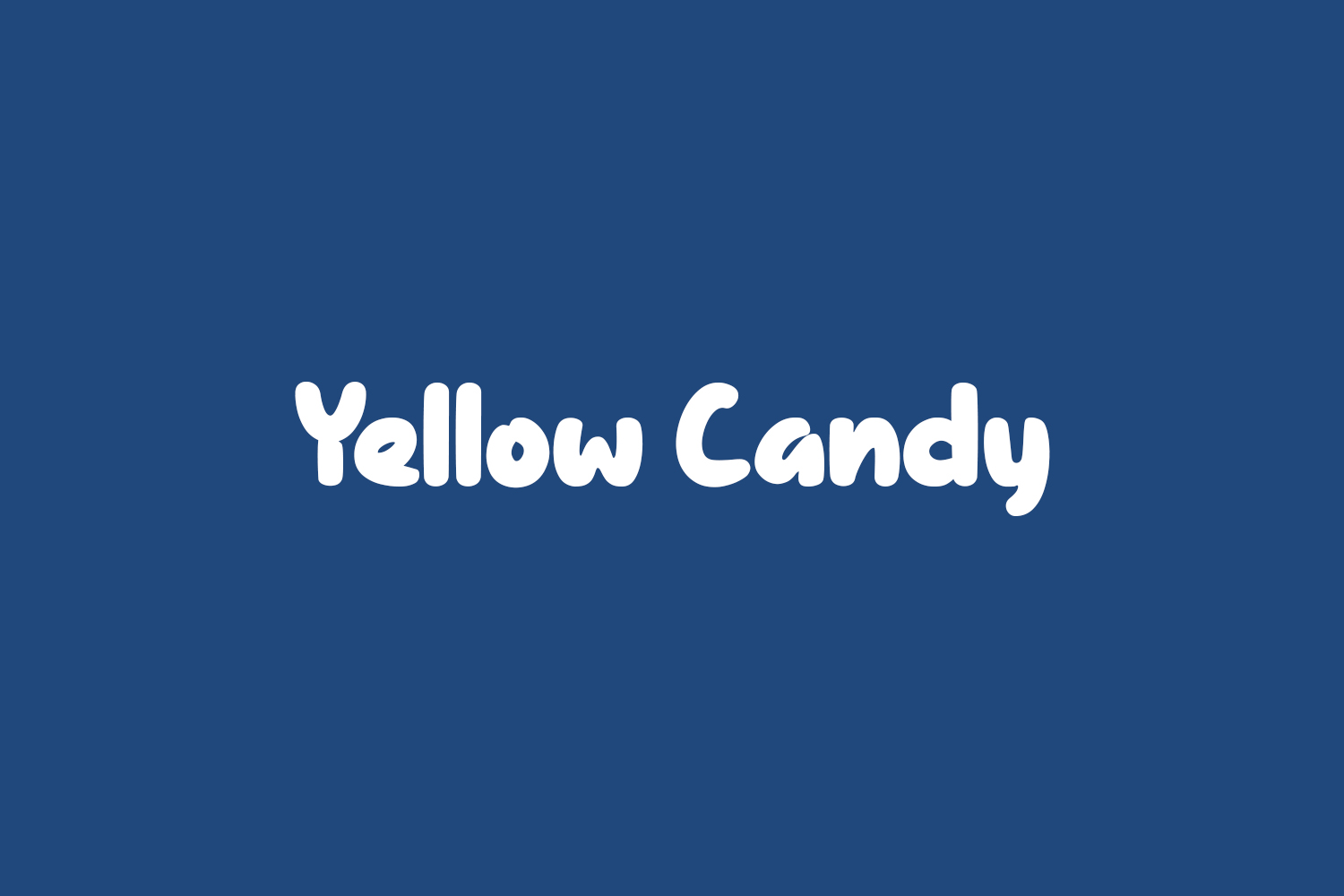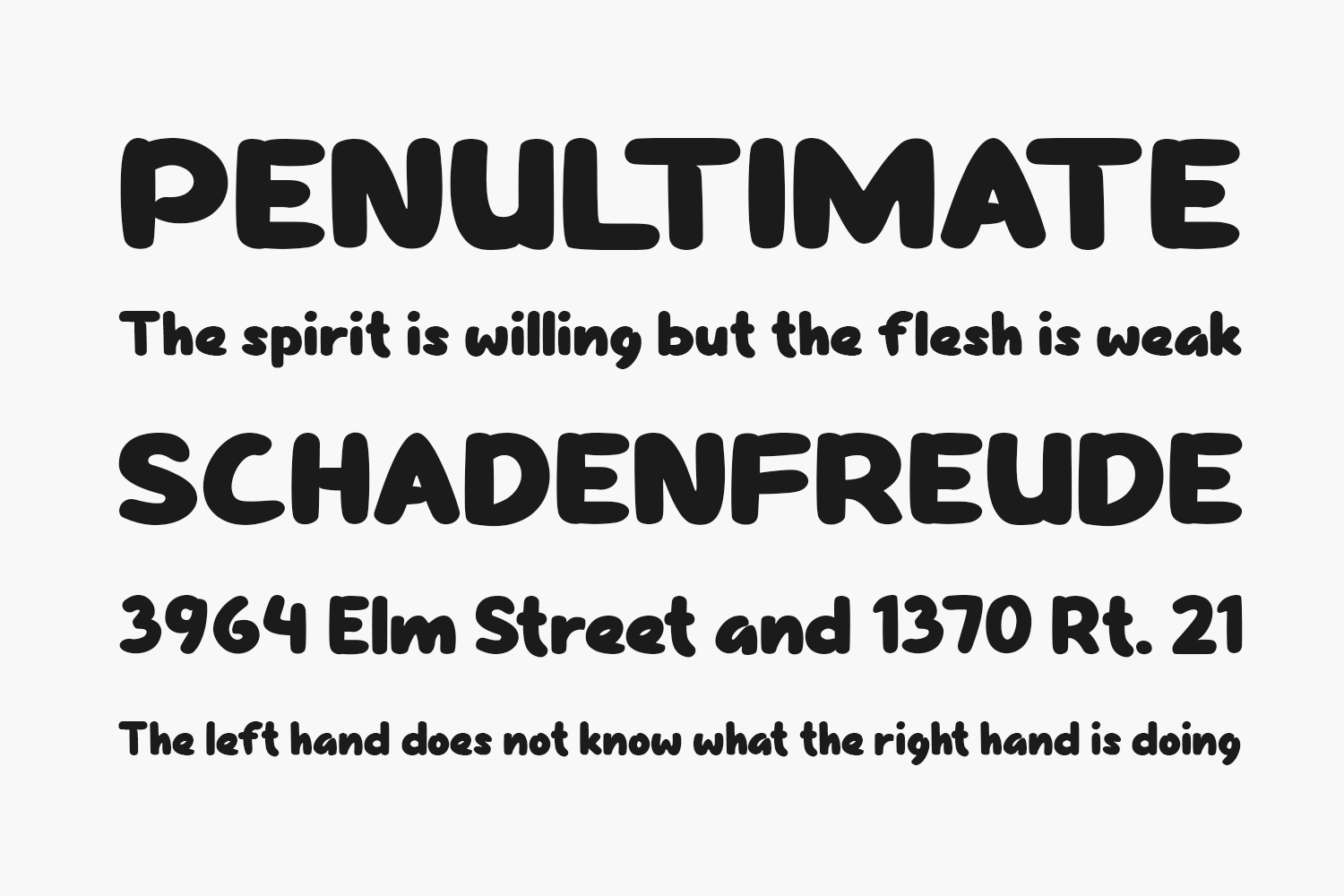
Yellow Candy Free Font is a little thick, friendly and quirky display font. Whether you are using it for cartoon-related designs, children’s games, quotes, titles, brand names, book covers, posters, or just any creation that requires a touch of beauty, this font is a great choice. Yellow Candy Free Font was designed by Dacatype Studio and is free for personal use only. Please purchase the full version for commercial use.